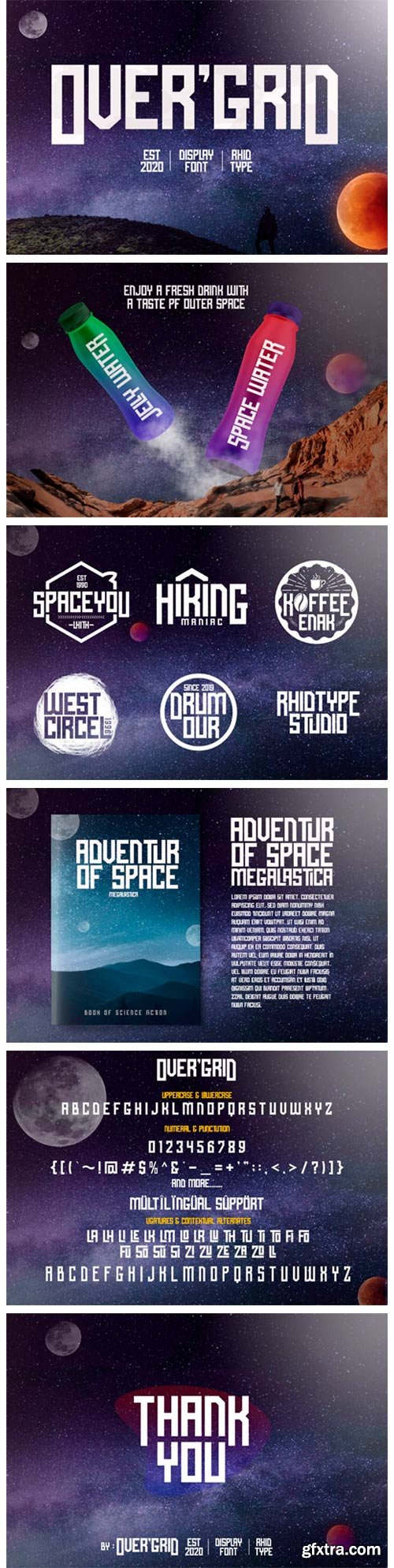
Over'Grid Font
Over’Grid is a bold and thick lettered display font. It can be used for various purposes such as logos, headings, t-shirts, letterhead, signage, labels, news, posters, badges and so much more.